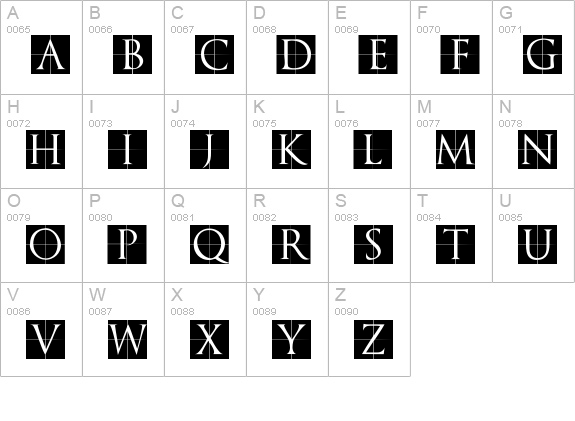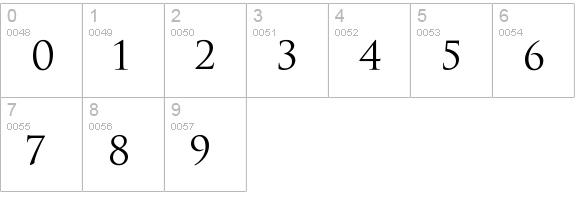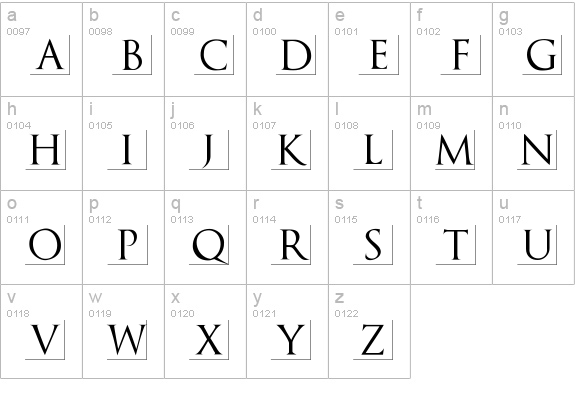
TrajanusBriX-Invers Font Details
TrajanusBriX-Invers font is a stunning typographic masterpiece that exudes elegance and sophistication. Its beautifully crafted letterforms, with their clean lines and intricate details, captivate and mesmerize the eye. This font is a perfect fusion of classic and modern design, making it versatile and suitable for a wide range of creative projects. With its inverted style, TrajanusBriX-Invers font adds a unique twist to any text or design. The inverted letters create a visually striking effect, adding depth and dimension to your words. Whether used for headlines, logos, or artistic compositions, this font commands attention and leaves a lasting impression. One of the most remarkable features of TrajanusBriX-Invers font is that it is available for free. Yes, you read that right! This extraordinary font can be freely downloaded from FontsMarket.com, allowing designers, artists, and enthusiasts to unleash their creativity without any cost barriers. This generous offering enables everyone to access and utilize the sheer brilliance of TrajanusBriX-Invers font, making it an indispensable tool in any designer's repertoire. Compatible with various software applications, TrajanusBriX-Invers font ensures seamless integration into your design workflow. Its high-quality and well-optimized design guarantees smooth rendering and legibility across different devices and platforms. Whether you're working on print materials, websites, or digital presentations, this font will consistently deliver exceptional results. The attention to detail in TrajanusBriX-Invers font is truly remarkable. Every curve, every serif, and every stroke has been meticulously crafted to perfection. The result is a font that exudes professionalism and refinement, elevating any design it is applied to. In conclusion, TrajanusBriX-Invers font is a striking and versatile typeface that effortlessly blends classic charm with a contemporary edge. Its inverted style adds a captivating twist to any text, making it stand out and leave a lasting impression. And the best part? It is freely available to download at FontsMarket.com, allowing designers of all levels to access the brilliance of this extraordinary font. So why wait? Unlock your creativity and enhance your designs with the timeless beauty of TrajanusBriX-Invers font today.